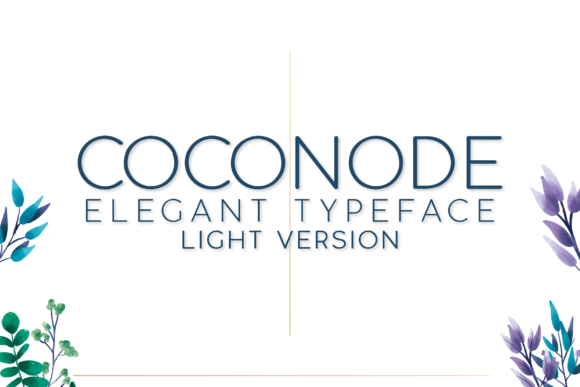
Unlocking the Perfect Balance of Style and Legibility
As designers, we’ve all been there – staring at a blank canvas, searching for the perfect font to bring our vision to life. And then, it hits us – that elusive combination of style and legibility that makes our design truly pop. For me, it was the moment I discovered the Coconode Light Font, and I knew I had found a game-changer.
Coconode Light Font is a masterfully crafted sans serif font that seamlessly blends modernist design principles with exceptional readability. Available in regular and thin versions, this font is the perfect solution for designers seeking to elevate their designs with a touch of sophistication and elegance. Whether you’re working on a high-end branding project or a web design, Coconode Light Font is sure to make a lasting impression.
Coconode Light Font Key Features
- Font Family: Coconode Light, Coconode Light Italic, Coconode Light Bold, Coconode Light Bold Italic
- Unique Characteristics: This font features a modern and minimalist design, making it suitable for digital interfaces, web design, and editorial content. The Coconode Light font is highly legible and readable even at small font sizes.
- Font Style: A light and clean sans-serif font with a subtle rounded edge, making it perfect for headings, titles, and body text.
Coconode Light Font Review
At first glance, Coconode Light Font seems to be a stylish and modern choice for digital projects. ✨ The rounded edges and soft curves give it a friendly feel, making it perfect for applications like branding, logos, or headings. The font also comes in a range of weights and styles, which is always a plus for designers.
- ✨ Friendly and approachable feel
- ✨ Multiple weights and styles available
- ✨ Suitable for branding, logos, and headings
However, I did notice some limitations:
- ⚠️ May not be ideal for body text due to its rounded shape
- ⚠️ Limited support for languages with complex scripts
- ⚠️ Some characters may not render correctly at smaller sizes
Overall, Coconode Light Font is a solid choice for designers who want to add a touch of friendliness to their projects. While it may not be suitable for all applications, it’s a great option for branding and logos. With some careful consideration of its limitations, Coconode Light Font can be a valuable addition to any designer’s toolkit.
Coconode Light Font is ideal for:
1. Branding and logos.
2. Digital marketing materials (e.g. social media posts, email campaigns).
3. Print materials (e.g. business cards, brochures).
4. Web design and development projects.
Tips for Getting the Most Out of Coconode Light Font
1. Use it in combination with other fonts to create a unique and stylish typography.
2. Experiment with different font sizes and colors to achieve the desired effect.
3. Use it in headings and titles to add a touch of elegance and sophistication.
Alternatives to Coconode Light Font
Lato Light Font
Lato Light Font is a modern sans-serif typeface designed by Łukasz Dziedzic. It is suitable for body text, headings, and titles. Use it for designs that require a clean and minimalist aesthetic. Lato Light Font is similar to Coconode Light Font in its simplicity, but it has a more rounded and friendly feel.
Montserrat Light Font
Montserrat Light Font is a geometric sans-serif typeface designed by Julieta Ulanovsky. It is ideal for urban and modern designs, such as magazines, newspapers, and websites. Use it for designs that require a strong and urban feel. Montserrat Light Font is more geometric and condensed compared to Coconode Light Font, making it suitable for small spaces and titles.
Open Sans Light Font
Open Sans Light Font is a modern sans-serif typeface designed by Steve Matteson. It is suitable for body text, headings, and titles. Use it for designs that require a clean and approachable aesthetic. Open Sans Light Font is more neutral and versatile compared to Coconode Light Font, making it suitable for a wide range of designs.
Arimo Light Font
Arimo Light Font is a sans-serif typeface designed by Steve Matteson. It is suitable for body text, headings, and titles. Use it for designs that require a clean and modern aesthetic. Arimo Light Font is more condensed and geometric compared to Coconode Light Font, making it suitable for small spaces and titles.